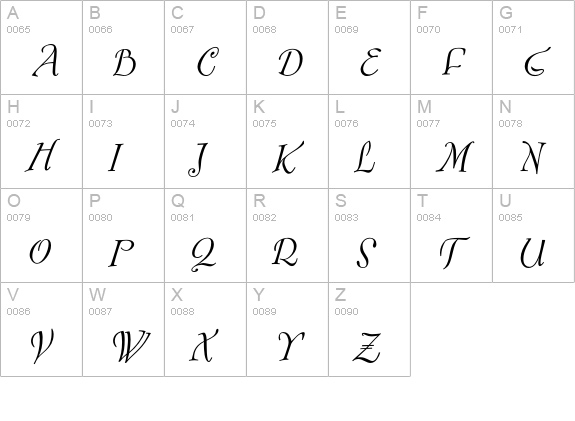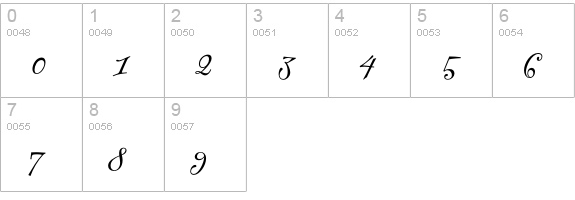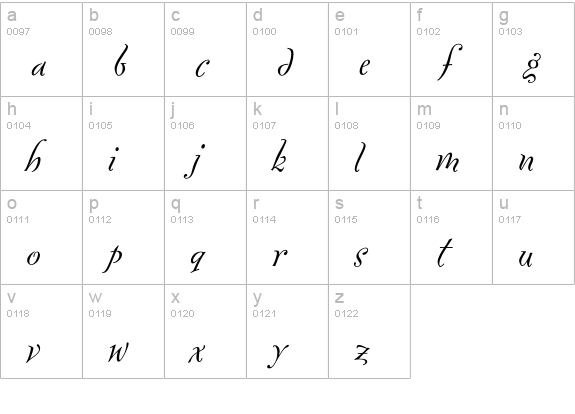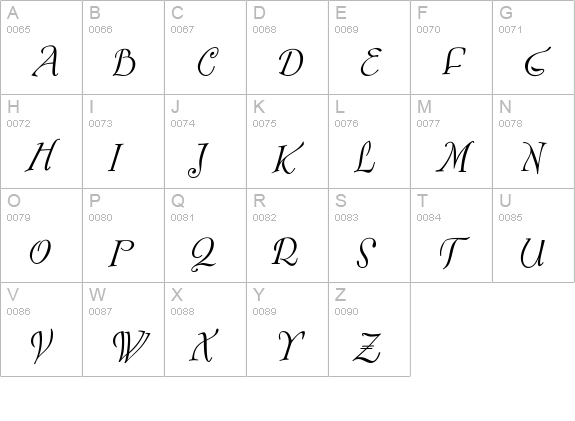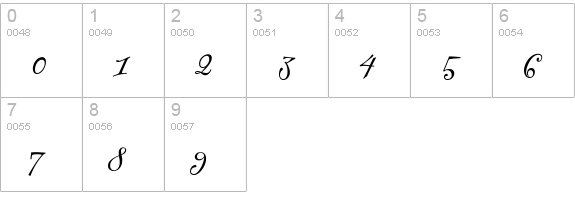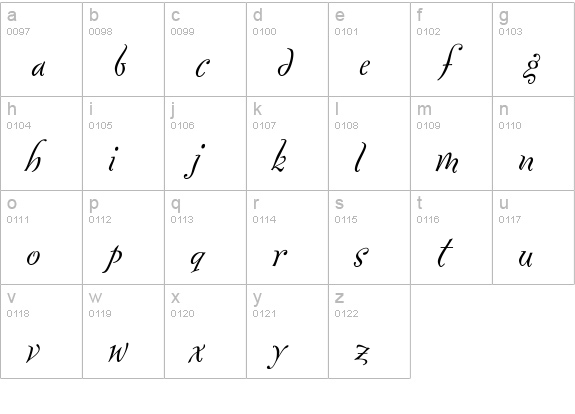
Fontesque-Italic is a distinctive, italic variant in the Fontesque typeface family \xE2\x80\x94 well suited to design and typography projects.
Fontesque-Italic is a beautifully crafted font that exudes elegance and sophistication. Its delicate italic style adds a touch of grace to any design project, making it perfect for invitations, branding, and editorial content. The flowing curves and unique letterforms of Fontesque-Italic give it a timeless appeal that is sure to captivate your audience. The best part? Fontesque-Italic is available for free download at FontsMarket.com, making it accessible to designers and creatives of all levels. Whether you're working on a personal project or a professional assignment, this font is a versatile choice that will elevate your work to new heights. Don't miss out on the opportunity to add Fontesque-Italic to your font collection today!